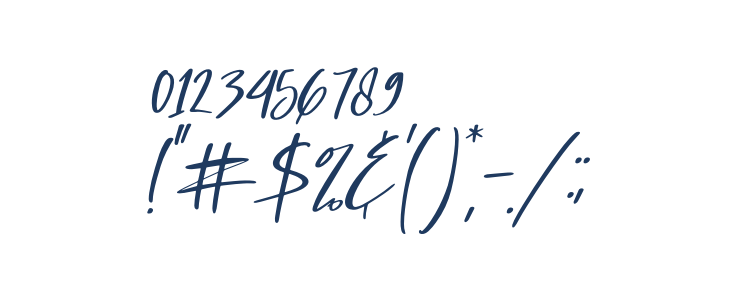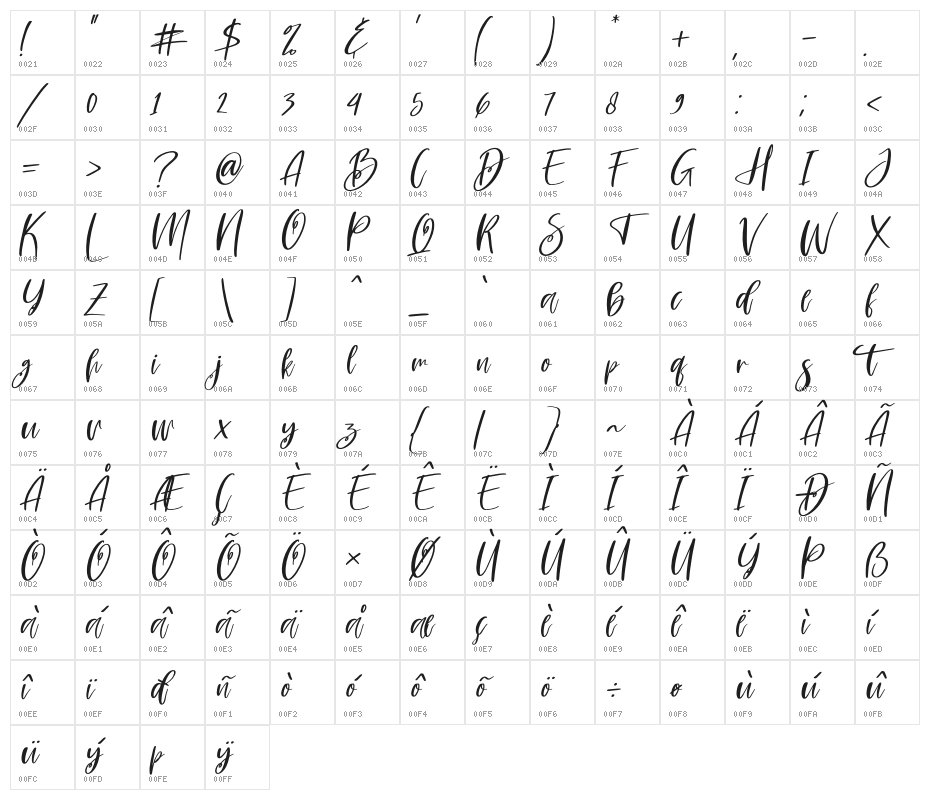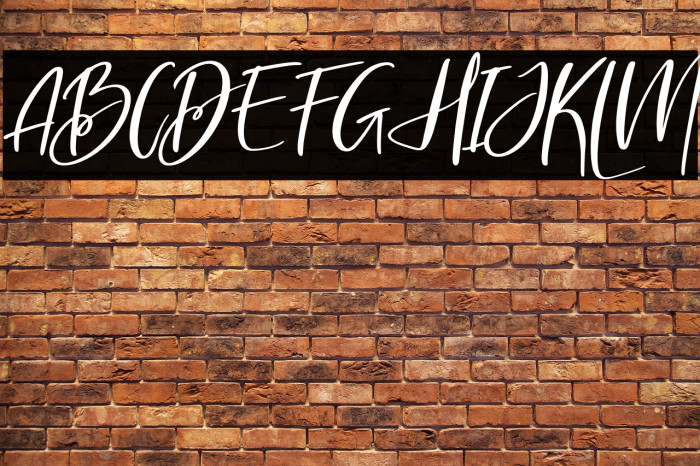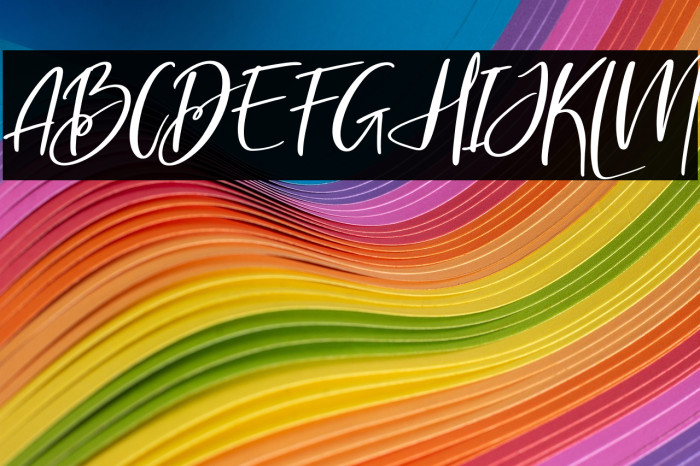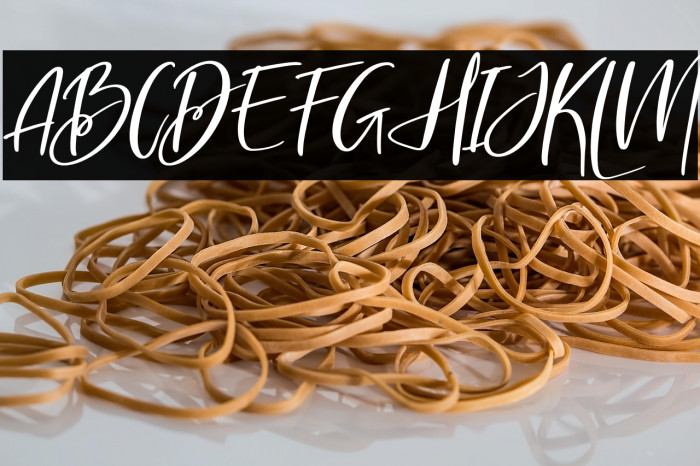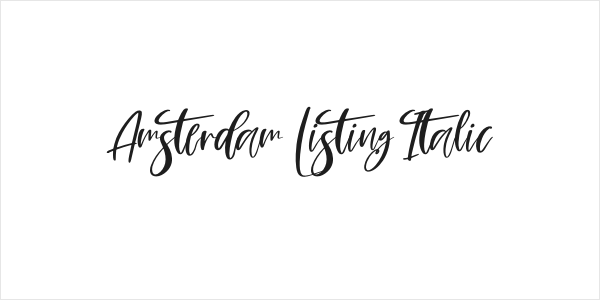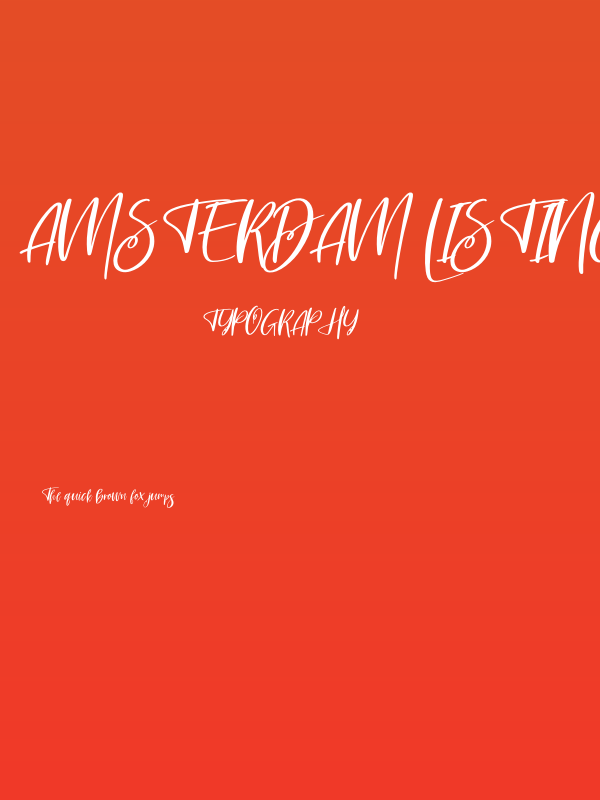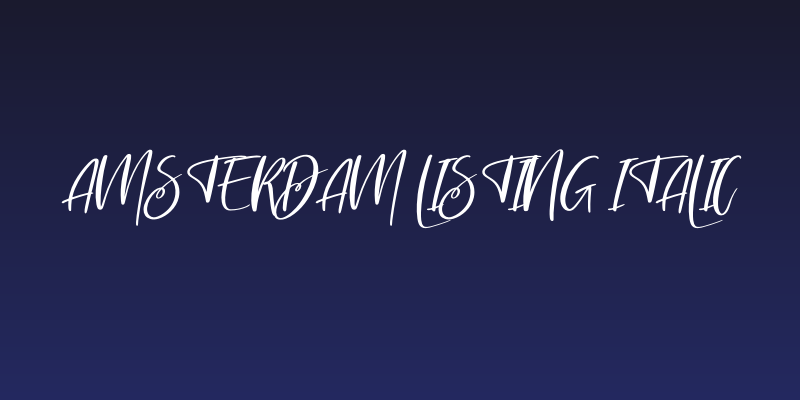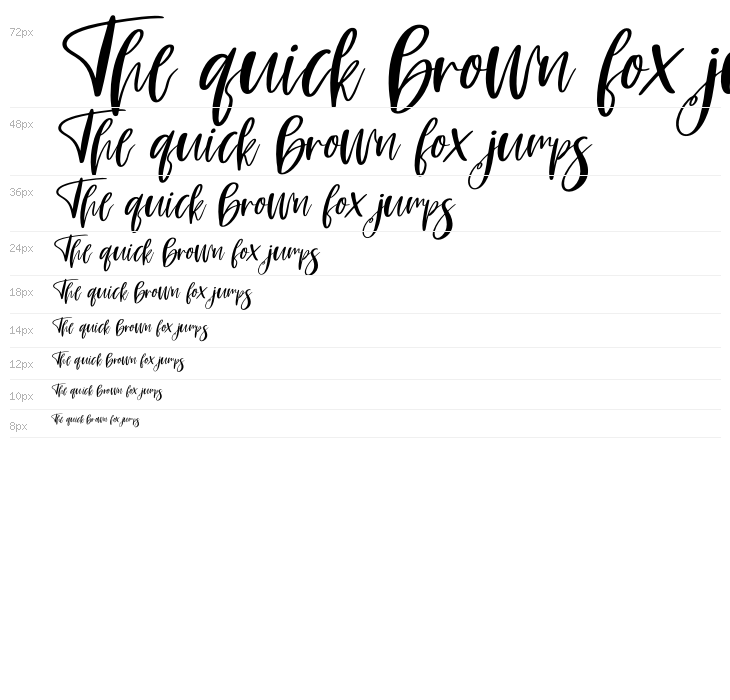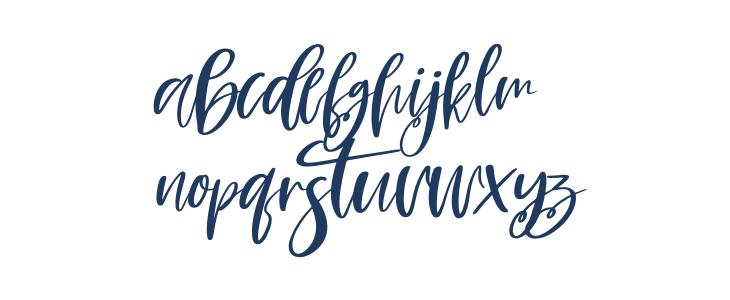
Amsterdam Listing Italic Font
Amsterdam Listing Italic Description
This font features an elegant and flowing script style, characterized by its smooth, cursive letterforms that exude a sense of sophistication and grace. The uppercase letters are bold and dynamic, with sweeping curves and flourishes that add a touch of drama. The lowercase letters maintain a consistent flow, with gentle connections between each character, enhancing readability while preserving the artistic flair. Numbers and special characters are crafted with the same attention to detail, ensuring a cohesive look across all elements. This font's italic nature adds to its fluidity, making it ideal for projects that require a personal and artistic touch.
Overall StyleElegant, Artistic
Use CaseLogos, Invitations, Branding
Proposed ProjectsIdeal for wedding invitations, branding, greeting cards, and elegant packaging designs.